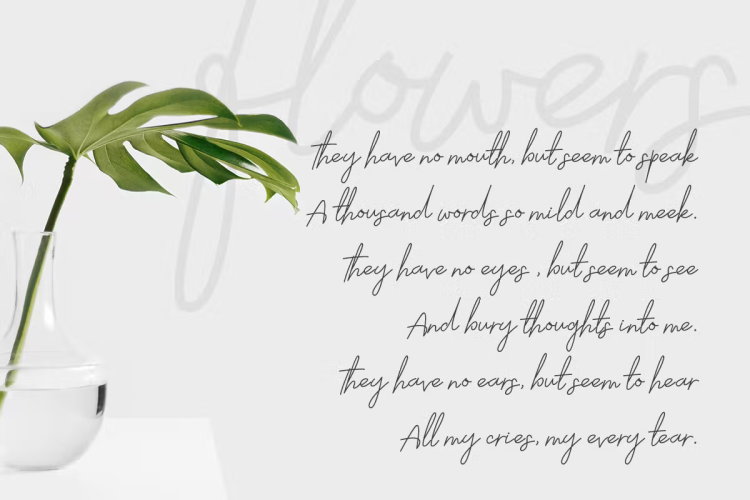
Moscato Script Font
Introducing Moscato – A dapper handwritten font with a personal touch. Moscato is perfect for many different project ex: quotes, blog header, poster, wedding, branding,…
Introducing Moscato – A dapper handwritten font with a personal touch. Moscato is perfect for many different project ex: quotes, blog header, poster, wedding, branding, logo, fashion, apparel, letter, invitation, stationery, etc.
Where Moscato Script Font works best
A short phrase in Moscato Script Font carries warmth that a typeset sans cannot fake; keep the rest of the card plain.
Chalkboard-style headings in Moscato Script Font make a menu feel hand-made. Keep the dish descriptions in a simple face so prices stay readable.
One line of Moscato Script Font over a photo is enough; the script carries the tone and the caption does the work.
What kind of work does Moscato Script Font suit?
It sits in the Script And Handwritten group and reads as branding, handwritten, script, script and handwritten. That makes it a candidate wherever those qualities help: headings, packaging, social graphics and brand work. Set it at the size you plan to use before deciding.